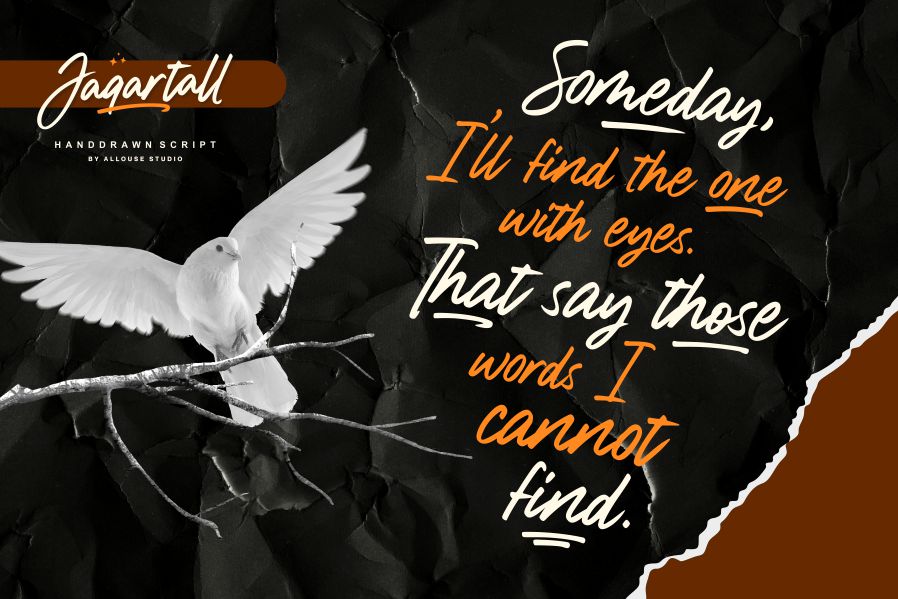
Jaqartall Font
Jaqartall Script Font
This is a dazzling script font. This font is neatly crafted and highly detailed. Whatever the topic, this font will be a wonderful asset to your font library, as it has the potential to enhance any creation. This font is PUA encoded which means you can access all glyphs and swashes with ease!